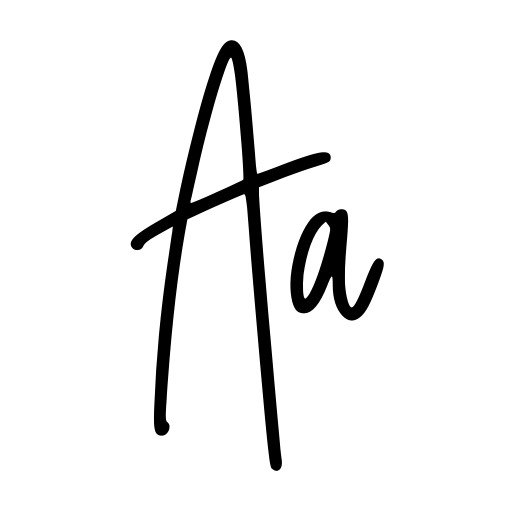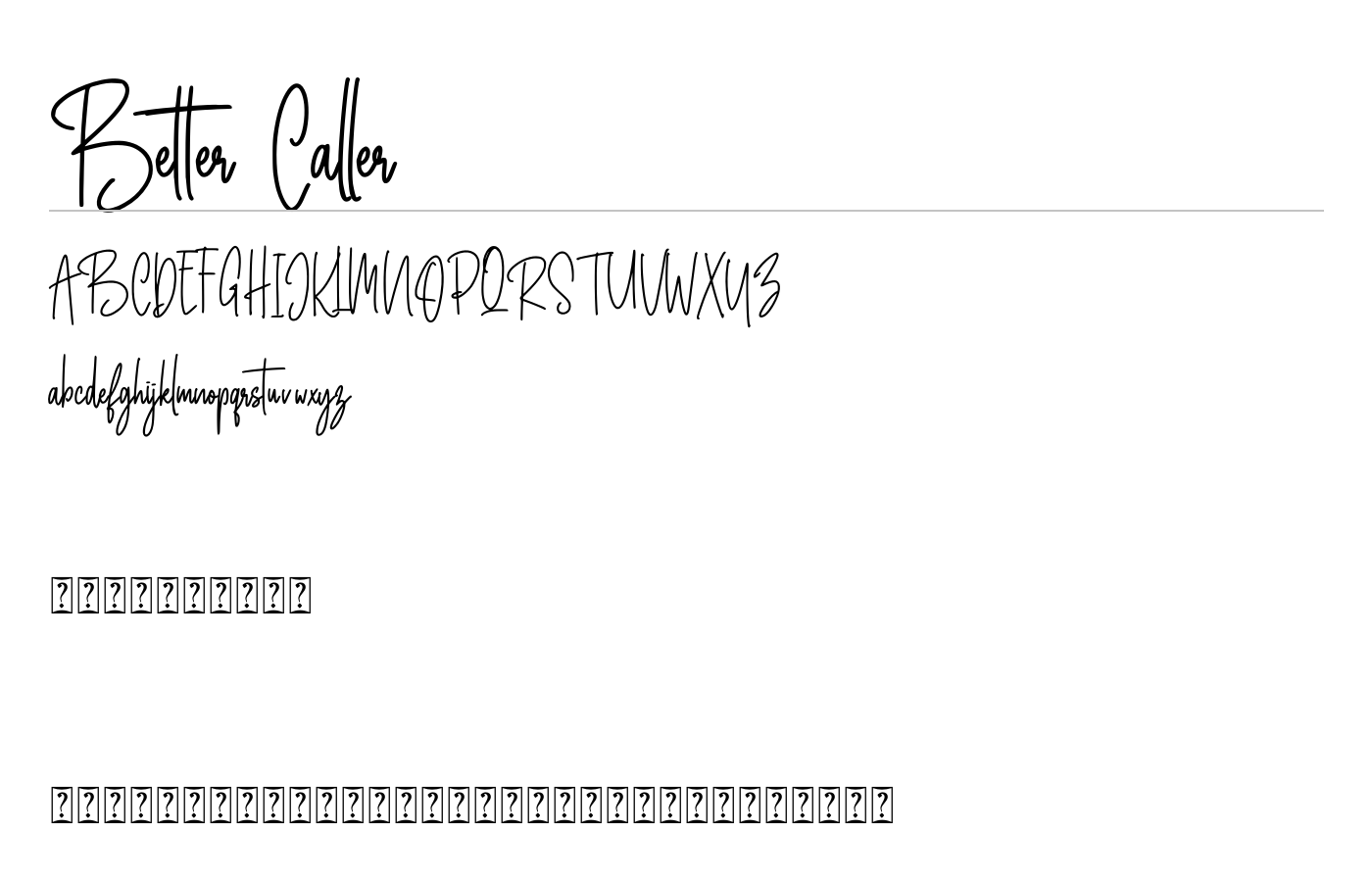
Better Caller is a slender, playful handwritten script font with a casual yet stylish feel. Its tall, narrow letterforms and organic strokes give it a dynamic and personal touch, making it ideal for creative projects, invitations, and branding that seeks a friendly, approachable vibe. This font works best for headlines, logos, and designs where a unique, informal handwritten style is desired.
Better Caller Font